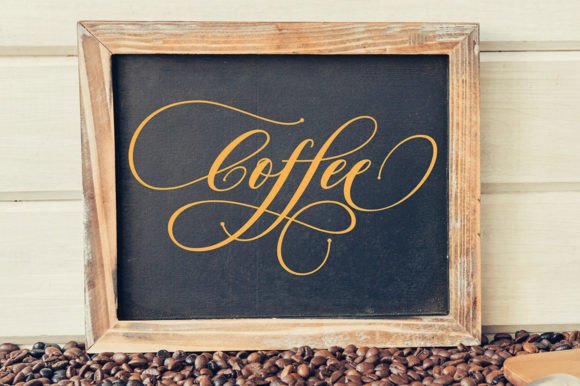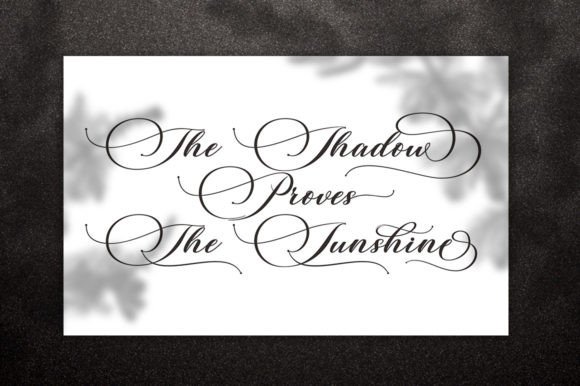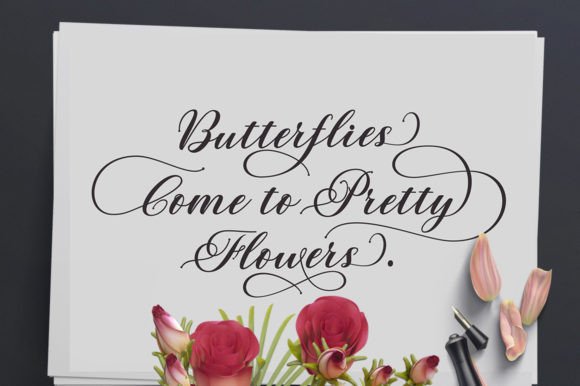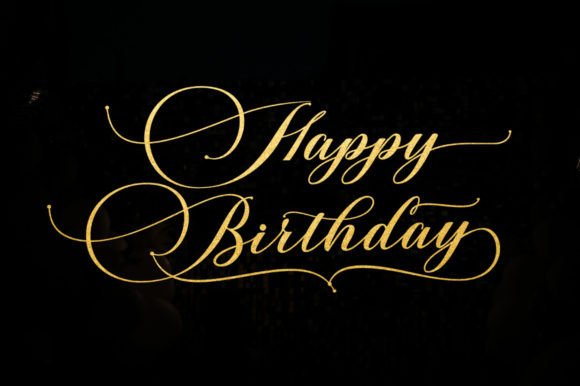
Auriga Font
Auriga is a graceful calligraphic script font that exudes a timeless elegance. Its sweeping curves and intricate flourishes evoke a sense of refinement and sophistication. With its delicate strokes and flowing lines, this font is perfect for invitations, formal documents, and other designs that require a touch of classic beauty.